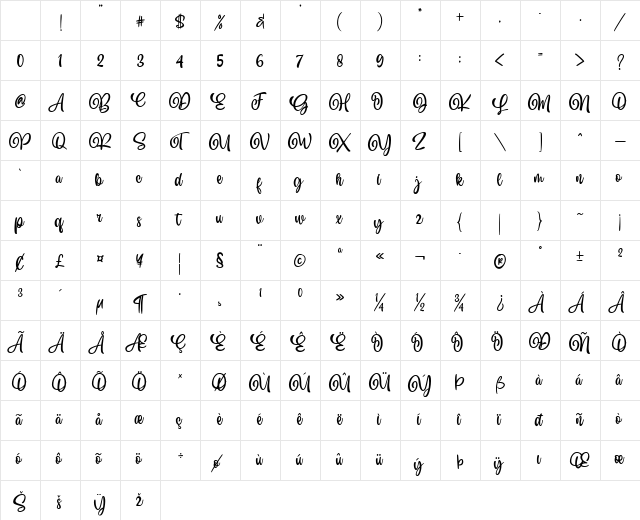
Blantick Script flows with the natural rhythm of handwritten lettering, making it ideal for designs that call for warmth and personal expression.
Font Pairing: Combine Blantick Script with a simple geometric sans for maximum contrast - the tension between flowing curves and clean structure is a classic typographic pairing.
Pro Tip: Use Blantick Script for short runs of text - names, titles, or taglines. Extended body copy in script faces tires the eye quickly.